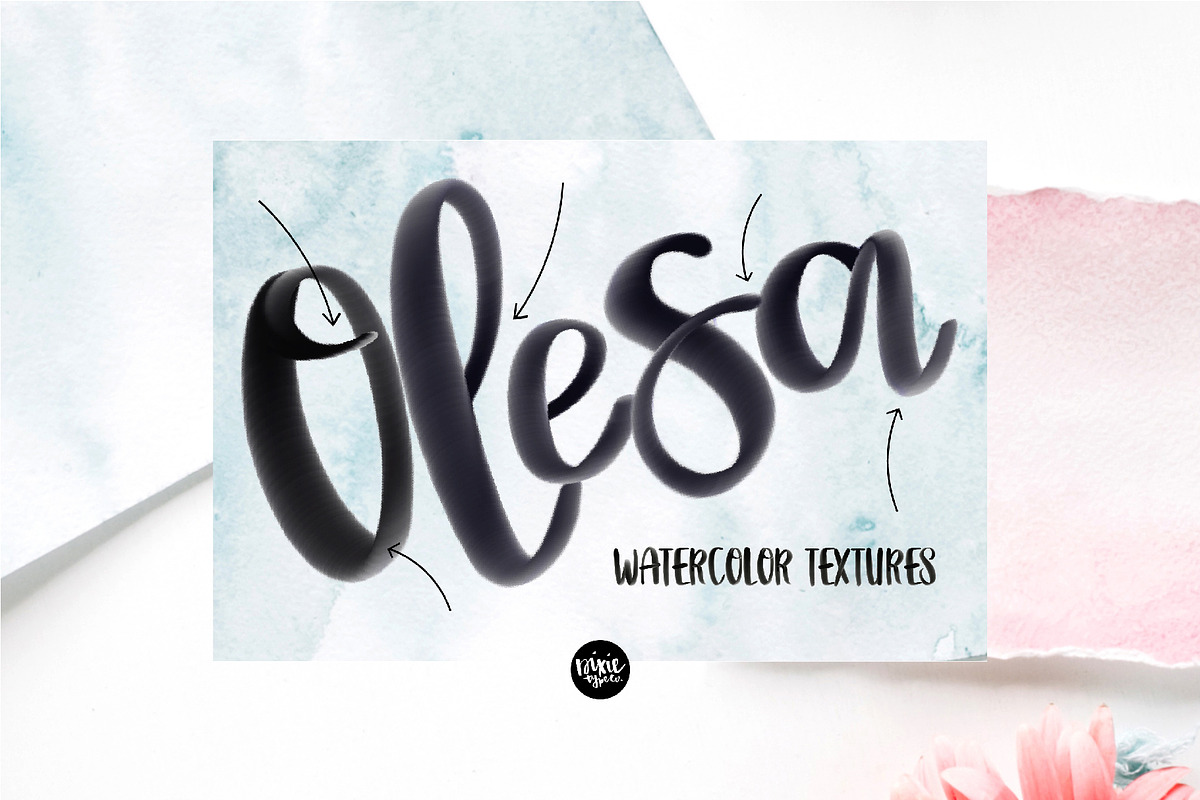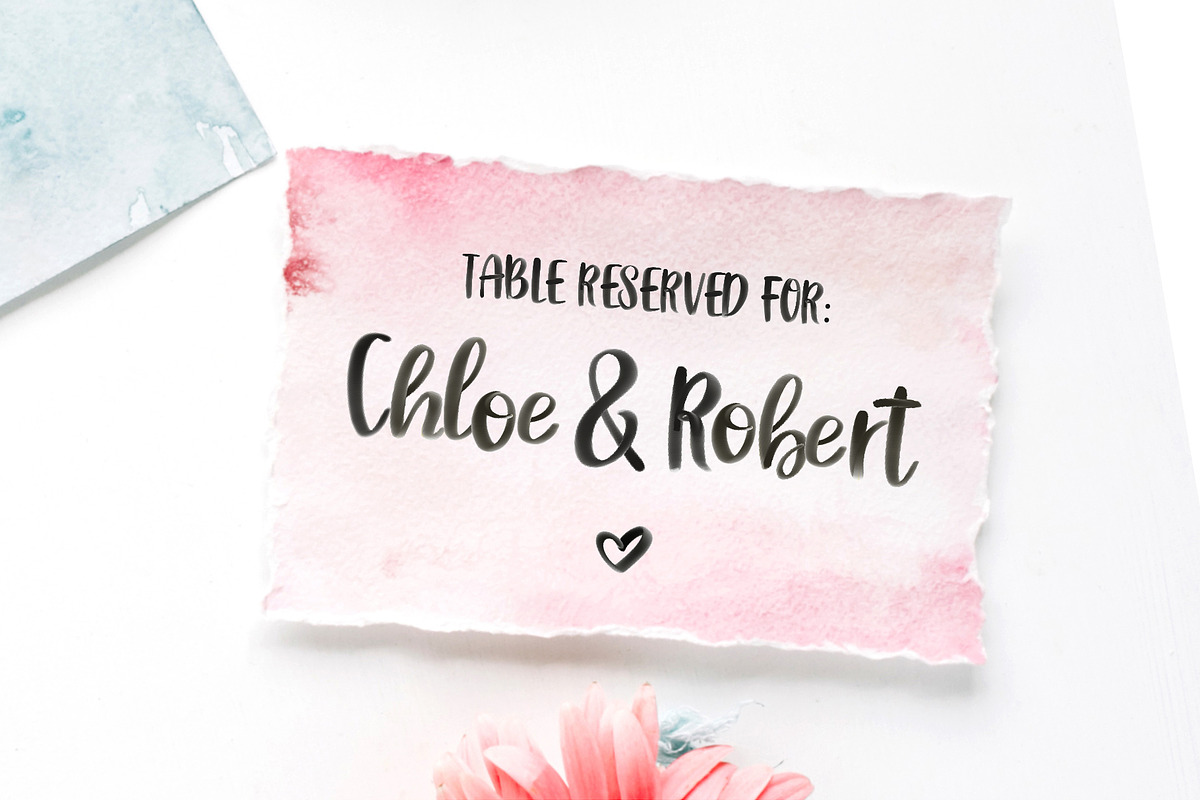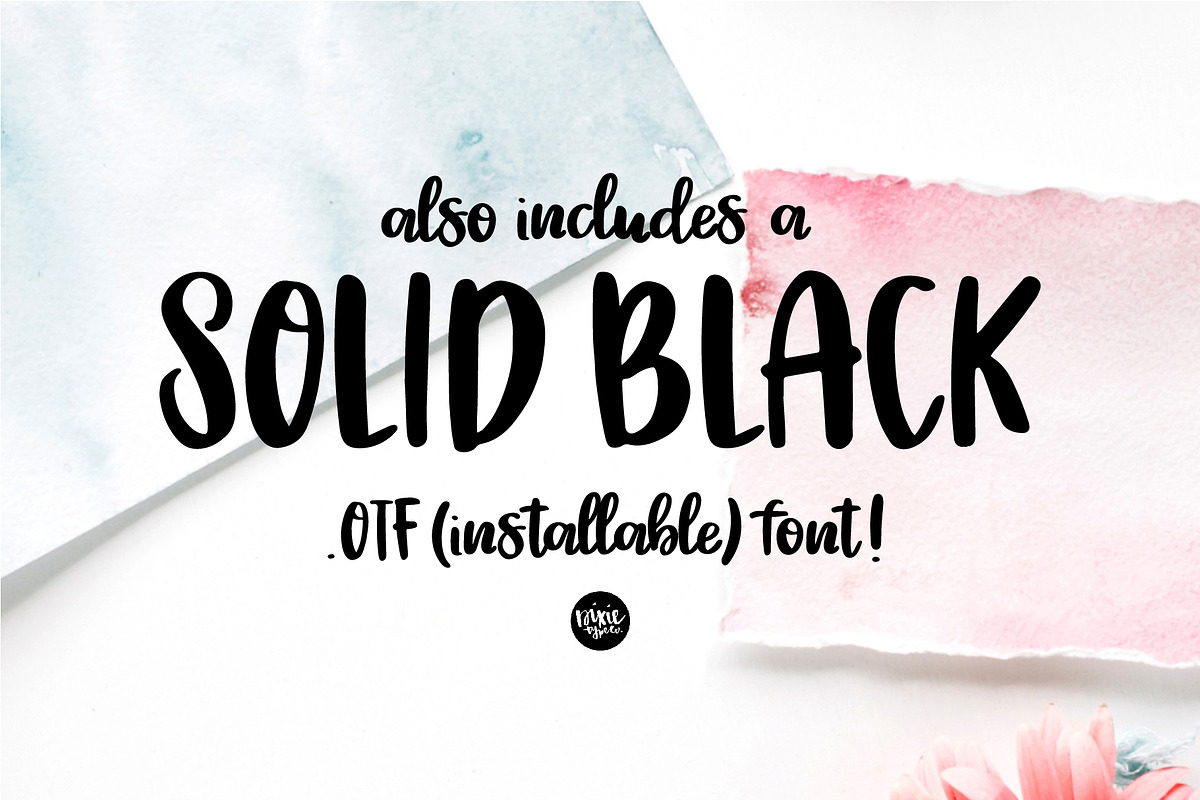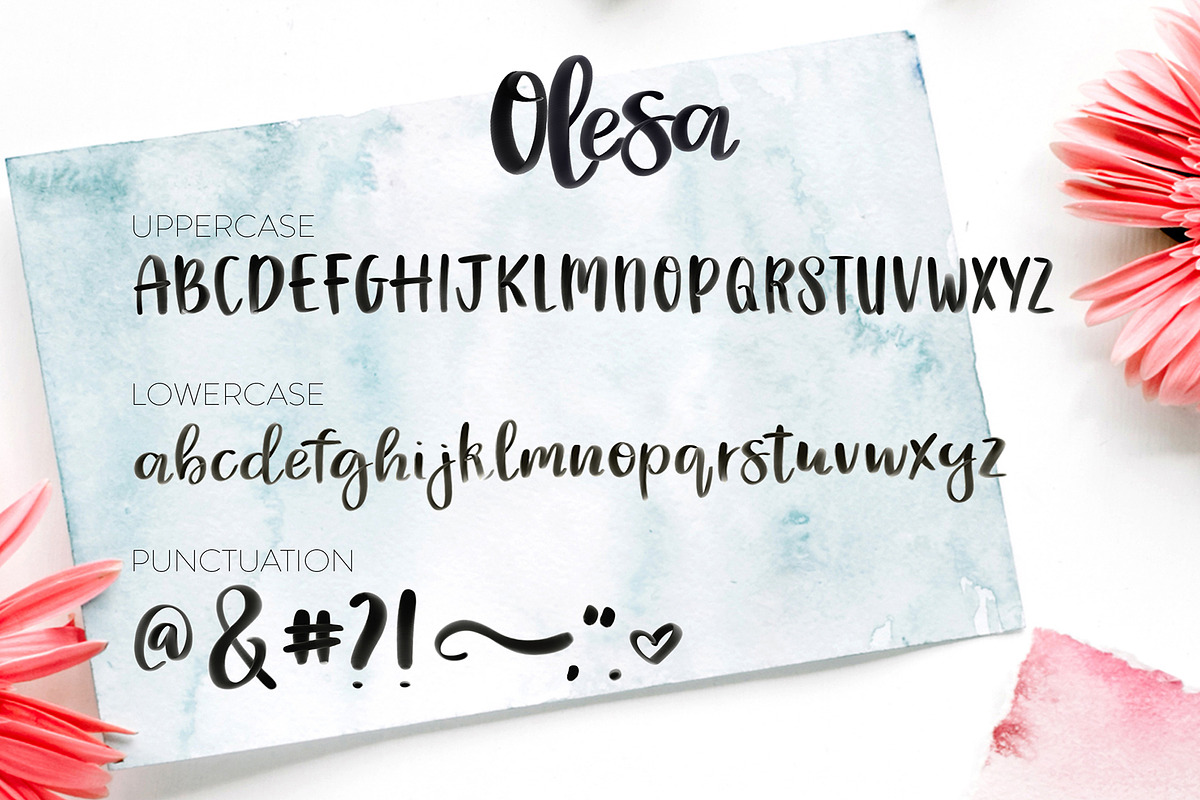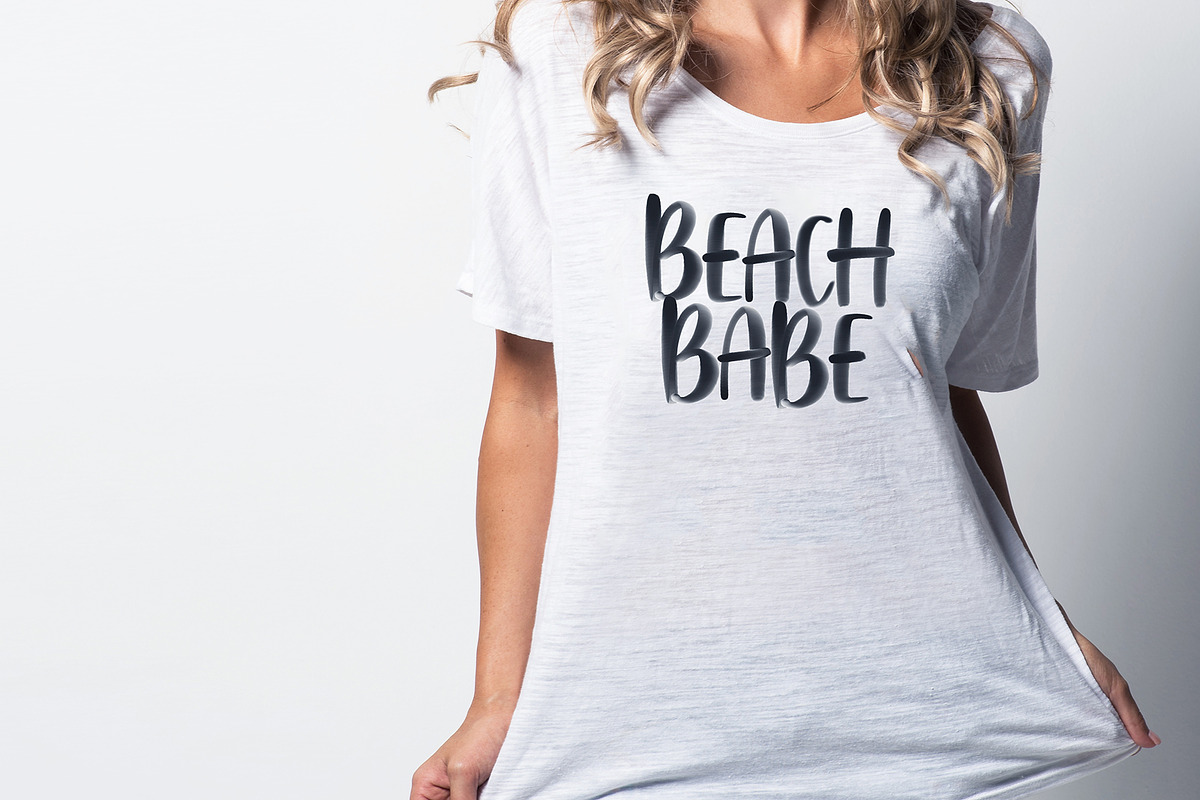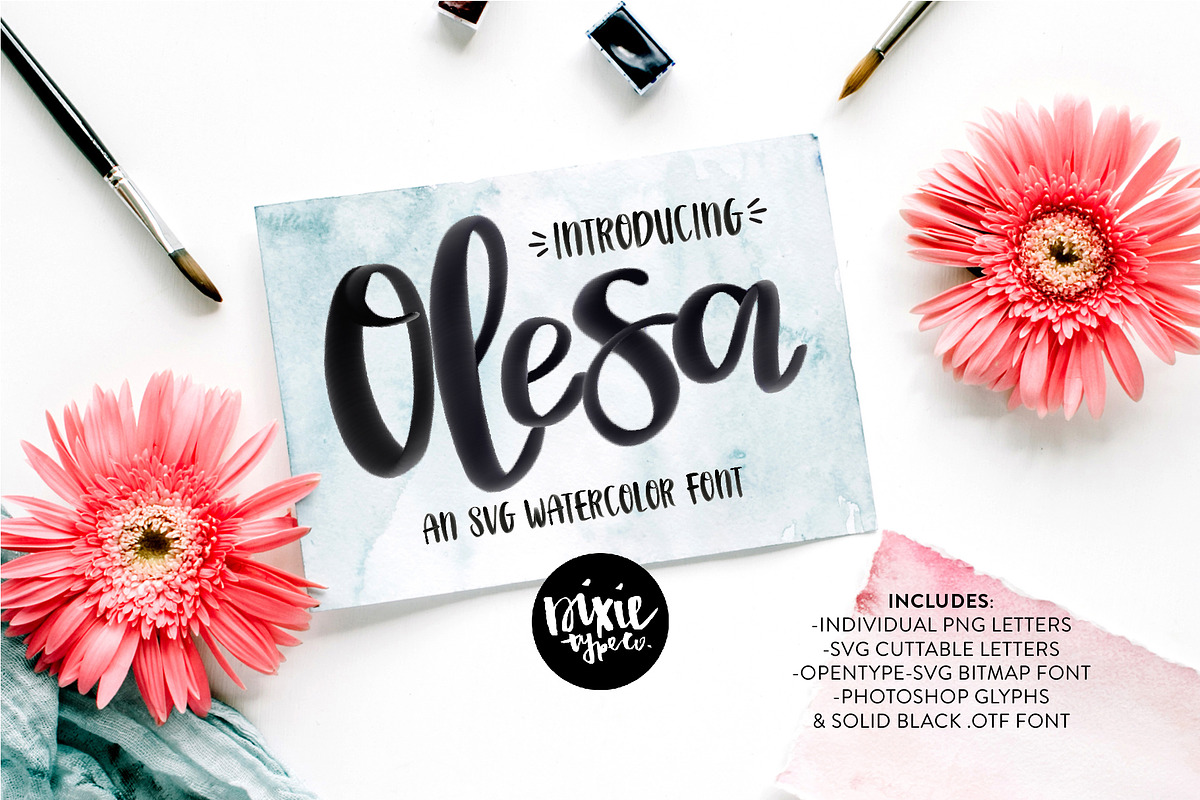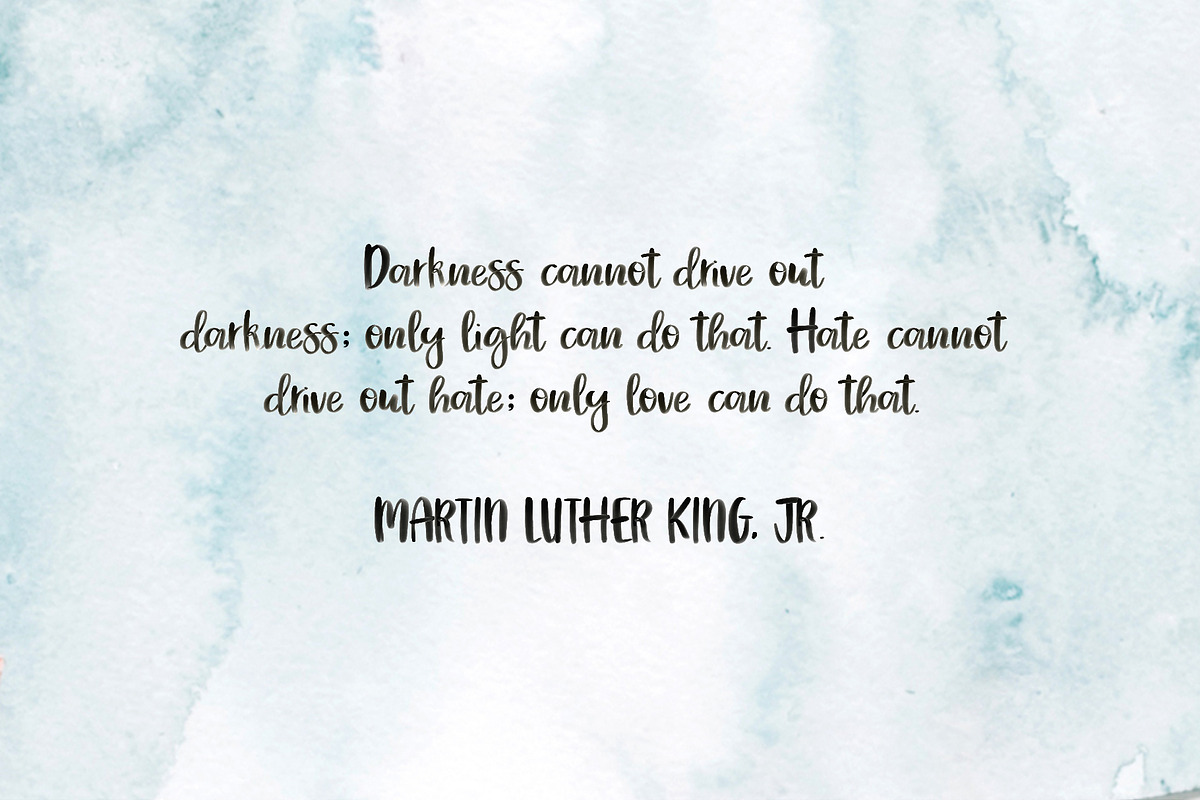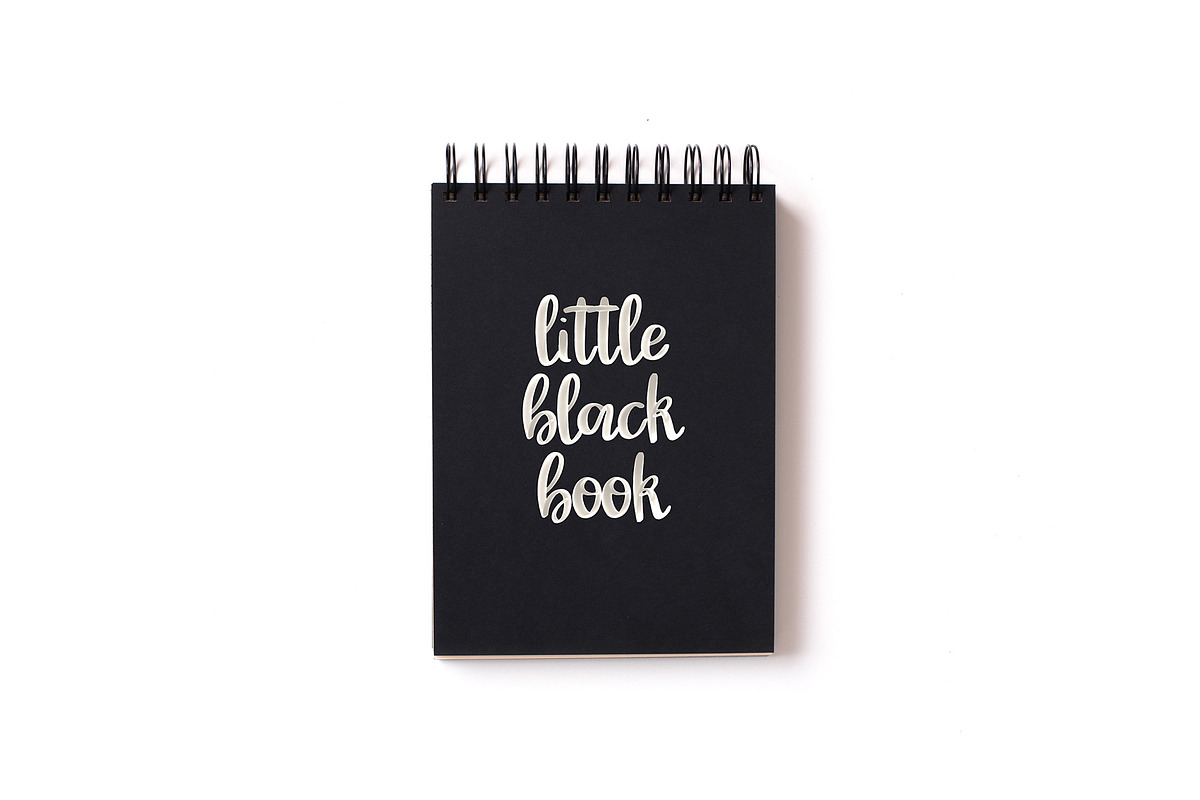
Olesa Watercolor OpenType SVG Font
"OLESA" by Dixie Type Co.
An OpenType SVG Watercolor (Bitmap) Font. Also includes a solid black .OTF installable font.
We highly recommend using the watercolor letters on a light background. Since they are watercolor, they fade to white, and will show a slight white outline on a dark background.
The watercolor letters are a brownish-black, but may vary slightly depending on your printer and/or screen.